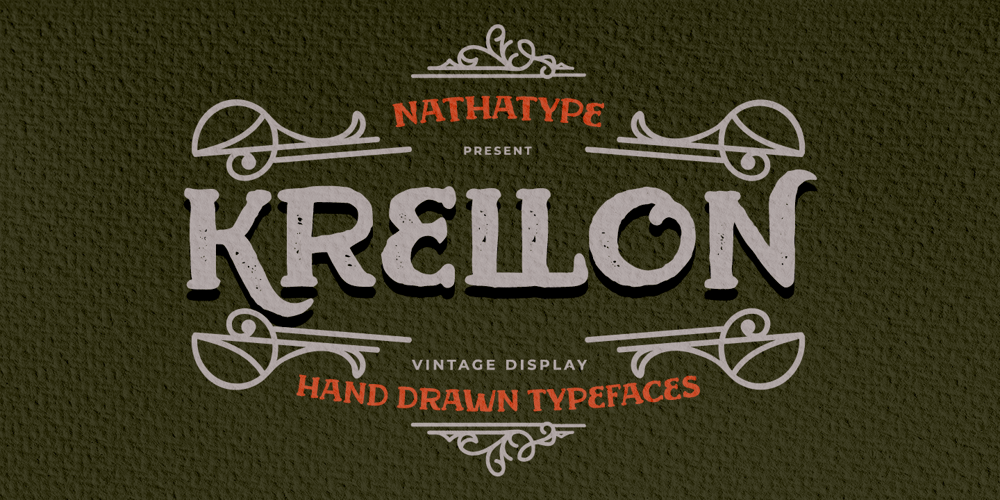
Krellon Font Family was designed by Donis Miftahudin and published by Nathatype. Krellon contains 1 styles and family package options. Krellon invites you to step back in time and embrace the elegance of the past with its vintage style. Rounded shapes define each character, creating a sense of approachability and friendliness. What makes Krellon so special is its subtle, textured appearance. The font carries a delightful roughness that adds authenticity to your text, as if each letter has endured the test of time. Beautiful ornaments are included as a bonus. Krellon fits in headlines, logos, branding materials, and many more.